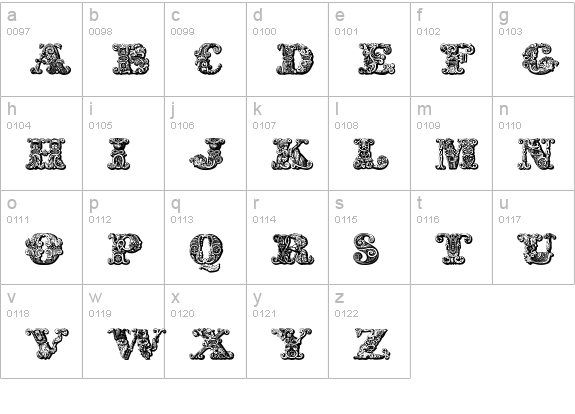
exotica Medium Font Details
exotica Medium is a balanced, medium-weight variant in the exotica typeface family \xE2\x80\x94 well suited to sub-headlines, navigation, and balanced editorial work.
Introducing Exotica Medium font, a striking typeface that exudes elegance and sophistication. With its unique blend of sharp edges and flowing curves, Exotica Medium is sure to make a statement in any design project. This versatile font is perfect for a wide range of applications, from branding to editorial design. What sets Exotica Medium apart is its seamless integration of modern and classic design elements, making it a truly timeless choice for your creative endeavors. Whether you're looking to add a touch of luxury to your next project or simply want to stand out from the crowd, Exotica Medium has you covered. And the best part? Exotica Medium is available for free download at FontsMarket.com. So go ahead, unleash your creativity and elevate your designs with this stunning font today.